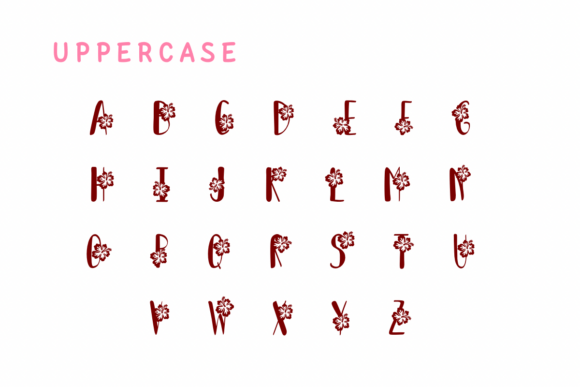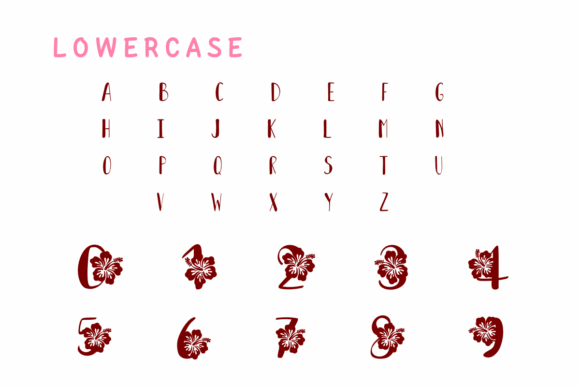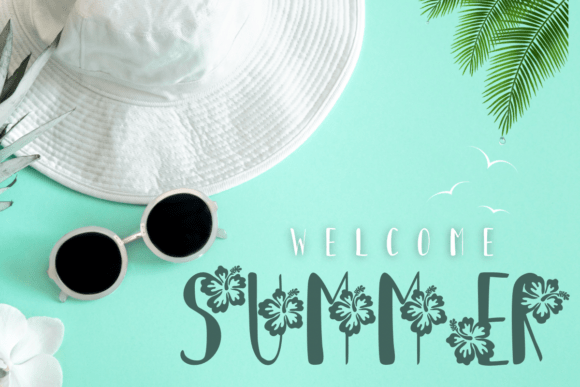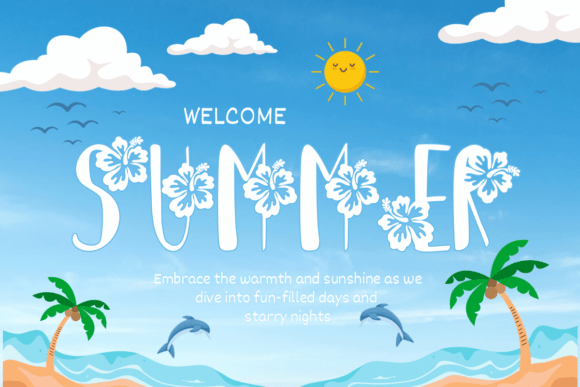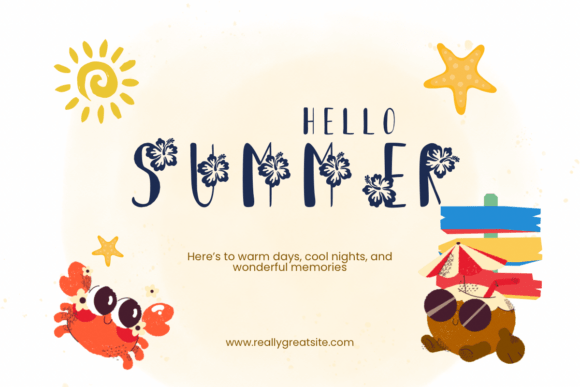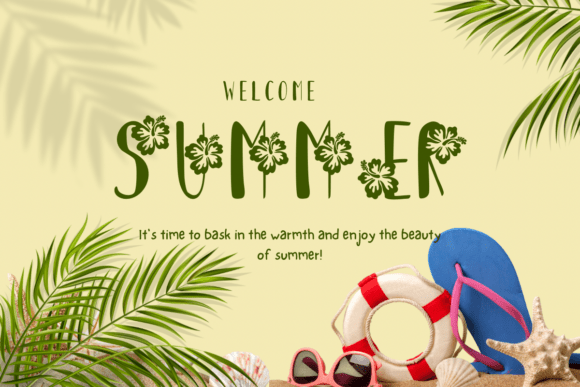
Introduction to Hibiscus Flower Font
As I sat at my desk, surrounded by scraps of paper and half-finished designs, I stumbled upon a hidden gem – the Hibiscus Flower Font. Its delicate petals and vibrant colors immediately caught my attention, and I knew I had to incorporate it into my next creative project. The Hibiscus Flower Font is more than just a pretty face; it’s a valuable resource for designers looking to add a touch of elegance and whimsy to their work.
With its high-quality design and transparent background, this font is perfect for a wide range of creative projects, from taking notes and writing diaries to designing banners and social media posts. And the best part? It’s available for free download, making it an essential addition to any designer’s toolkit.
Key Features of Hibiscus Flower Font
- High-quality design: This font is carefully crafted with attention to detail, making it perfect for creative projects.
- Large character set: This font includes a wide range of characters, including uppercase and lowercase letters, numbers, and punctuation marks.
- Resolution-independent: Designed to look great at various resolutions, from low to high DPI, making it suitable for both web and print projects.
- Unique floral design: The Hibiscus Flower Font features a beautiful, intricate floral pattern, adding a touch of elegance to any design.
Honest Review: Hibiscus Flower Font
I recently came across the Hibiscus Flower Font and was immediately drawn to its beautiful and delicate design. The high quality of the font is evident, making it a great addition to any design project.
- The font’s transparent background allows for seamless integration into various design elements.
- It’s a great design resource for creative projects, especially those with a tropical or floral theme.
- The font may not be suitable for projects requiring a bold or dramatic font style.
- The number of characters and languages supported is limited.
Overall, the Hibiscus Flower Font is a lovely addition to any design library. While it may have some limitations, its high quality and versatility make it a great choice for creative projects. With a free download option, it’s definitely worth checking out for any designer looking to add a touch of elegance to their work.
Tips for Getting the Most Out of Hibiscus Flower Font
To get the most out of the Hibiscus Flower Font, use it in conjunction with a transparent background to create a visually striking design. You can also experiment with different font sizes, colors, and styles to add depth and interest to your creative project.
The Hibiscus Flower Font is ideal for use in a variety of creative projects, including:
Branding and marketing materials
Printable art and wall decor
And more!